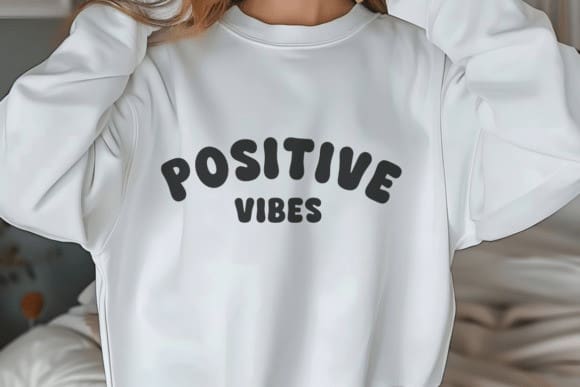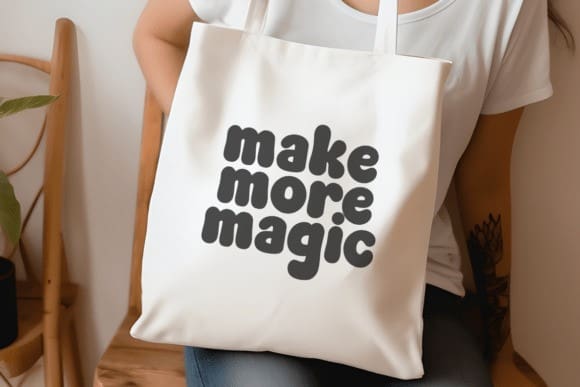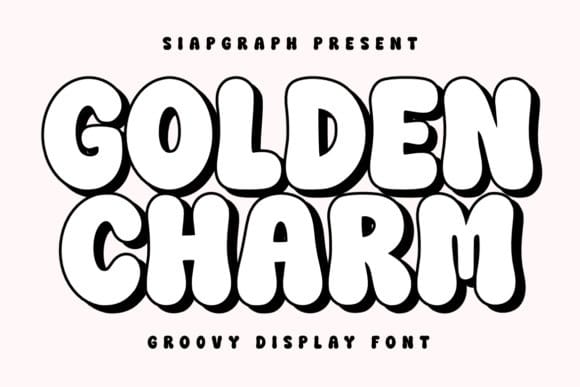
Golden Charm Display Font
Golden Charm Display Font is a cool retro groovy font that brings a fun, nostalgic vibe to your creative projects. Its thick strokes and playful curves make it perfect for adding a vintage flair to any design.